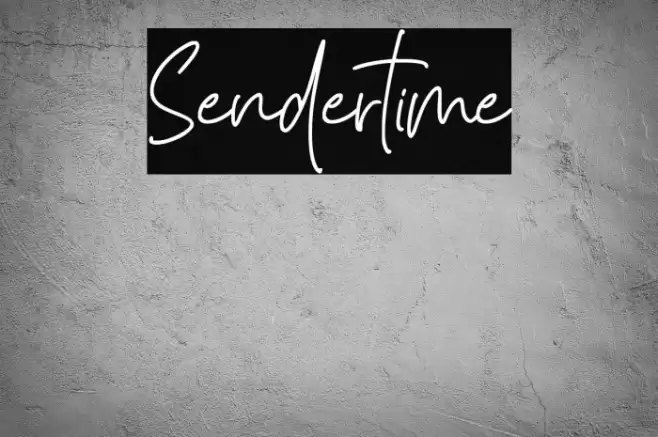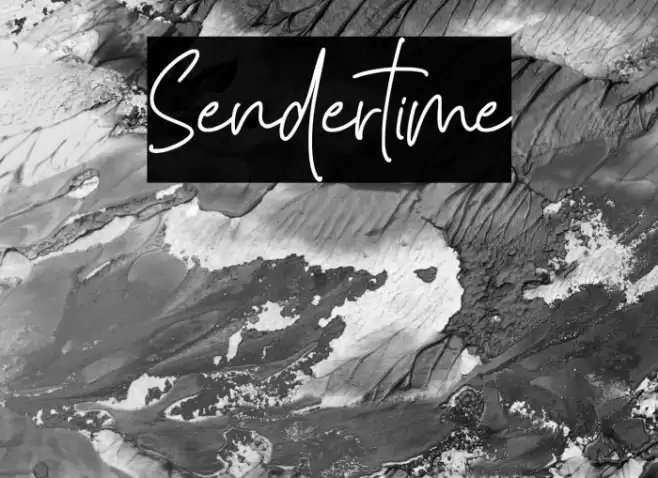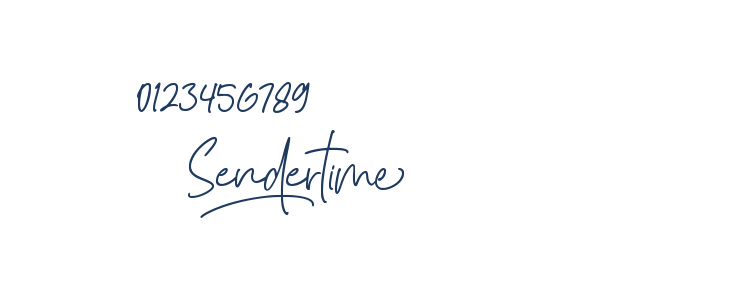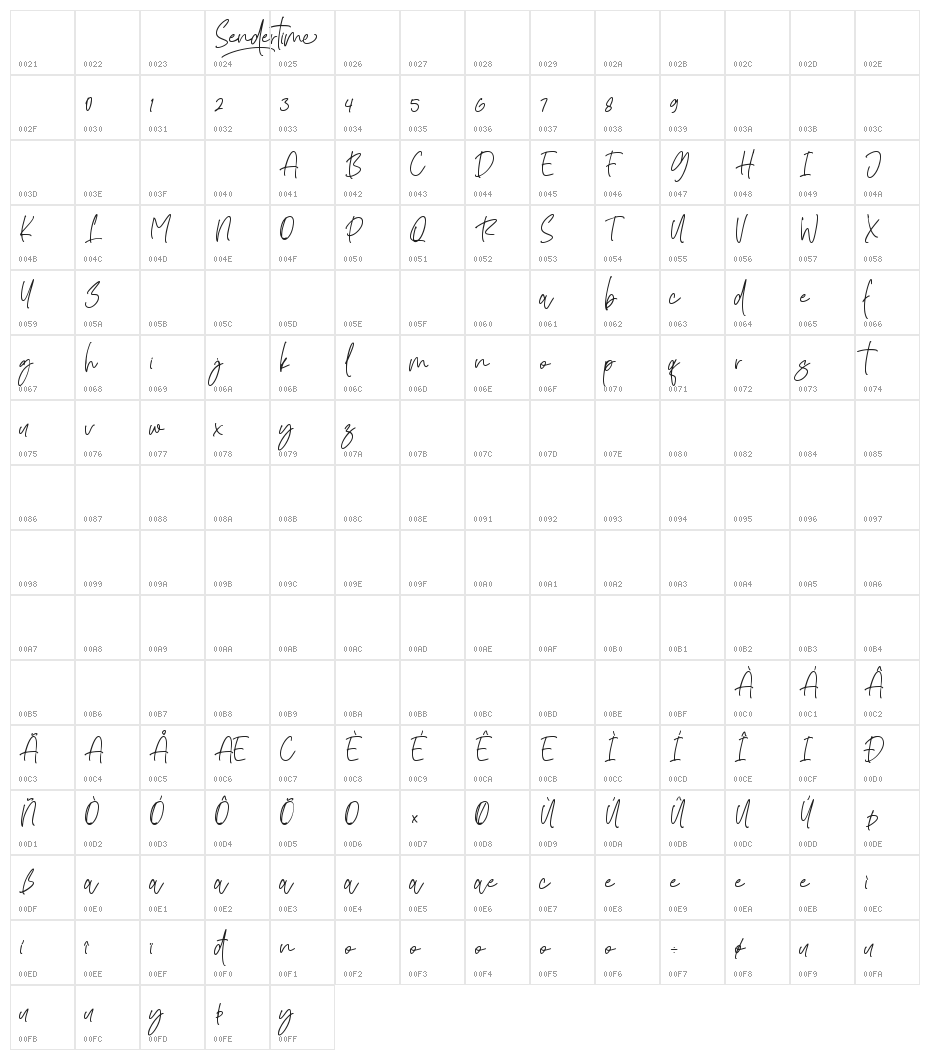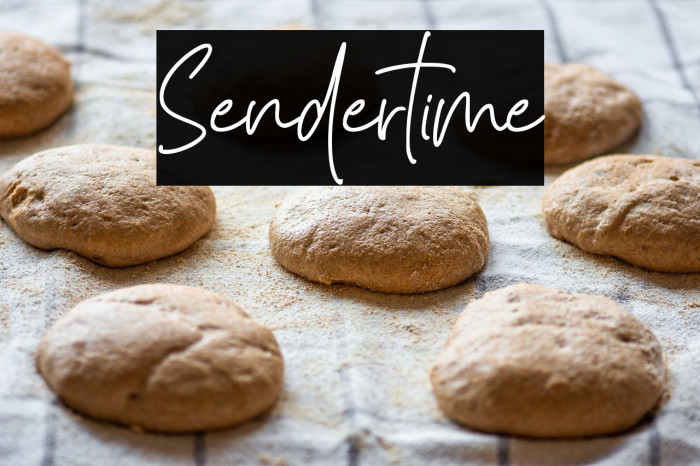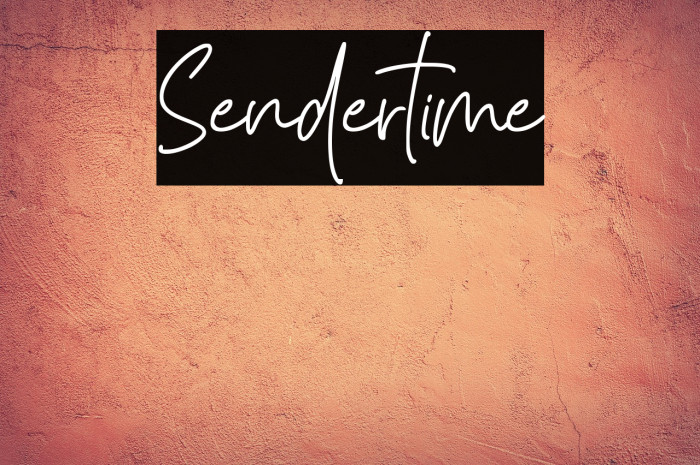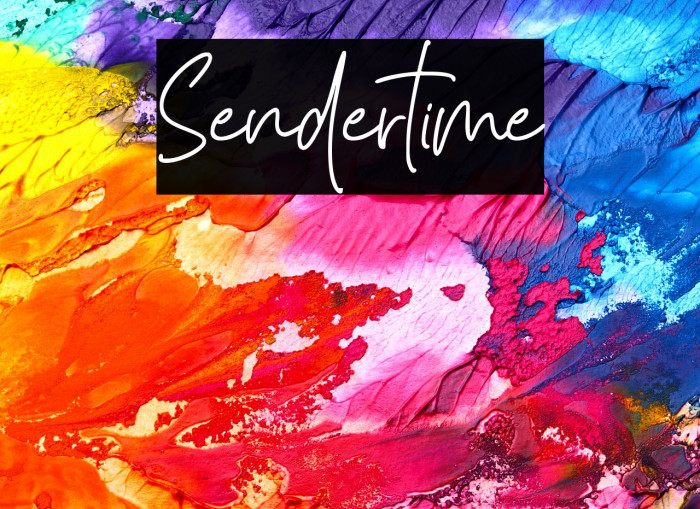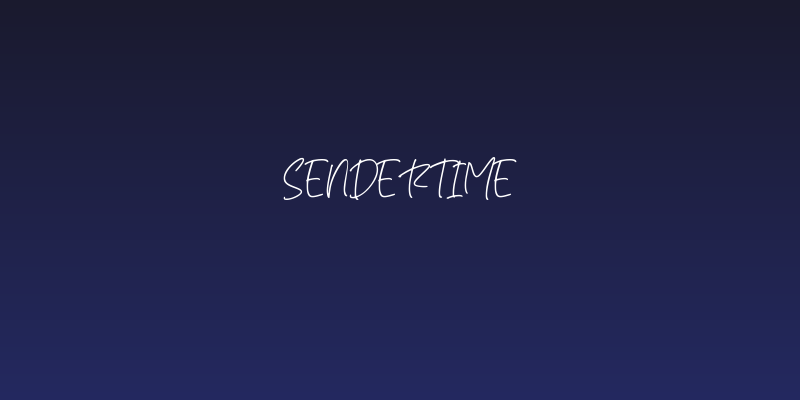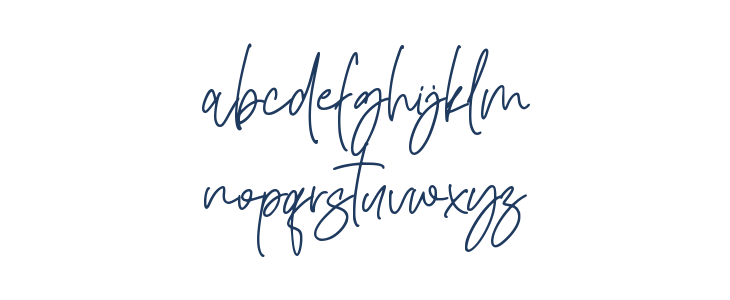
Sendertime Font
Sendertime Description
This font exudes a casual, handwritten charm with its fluid and dynamic strokes. The letters are elegantly connected, giving it a natural flow that mimics authentic handwriting. The uppercase characters maintain a consistent height, while the lowercase letters exhibit a playful bounce, adding to its informal appeal. The numbers and special characters are crafted with the same attention to detail, ensuring a cohesive look across all elements. This font's style is perfect for projects that require a personal touch, such as invitations, greeting cards, or branding materials that aim to convey warmth and approachability.
A casual, handwritten font with fluid, dynamic strokes and a natural flow from Regular fonts.
- Proposed Projects: Ideal for invitations, greeting cards, personal branding, and any project needing a warm, personal touch.
- Overall Style: Casual, Handwritten
- Use Case: Headlines, Logos, Invitations